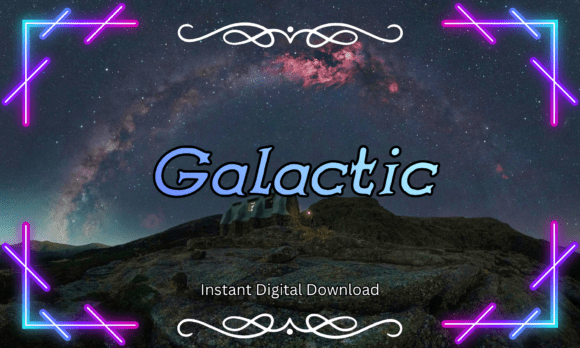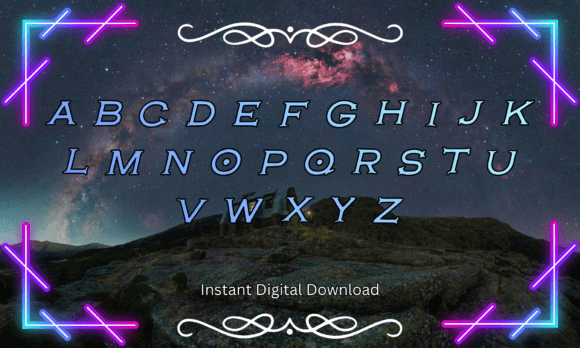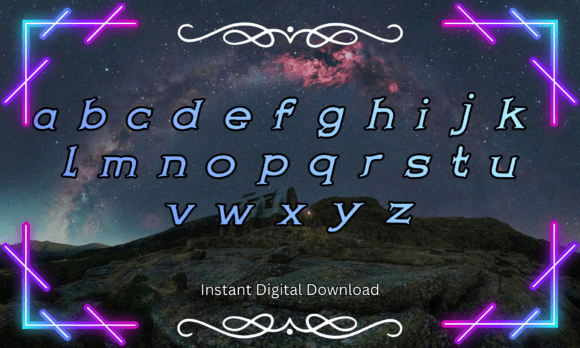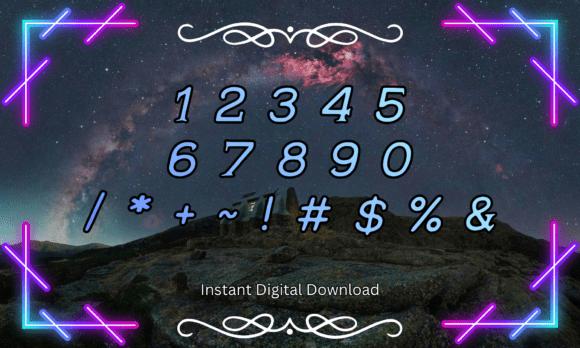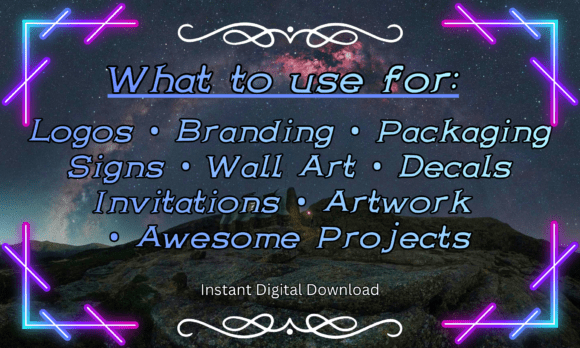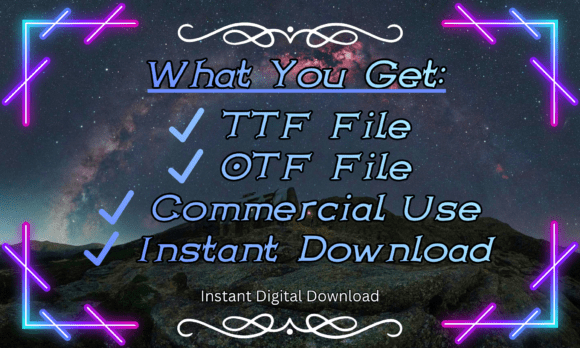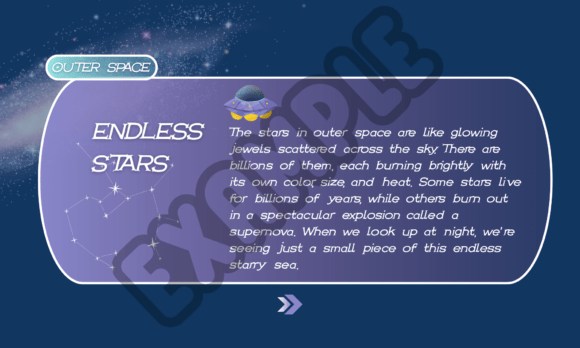
Beyond the Stars: Unlocking the Cosmic Potential of Design
As I sat in my studio, surrounded by screens and design tools, I was struck by a sudden urge to create something truly out of this world. I wanted to capture the essence of a futuristic galaxy, where stars and planets aligned in perfect harmony. That’s when I stumbled upon the perfect font – Galactic Font. This bold, futuristic typeface is the key to unlocking a world of cosmic design possibilities.
Galactic Font is more than just a font – it’s a gateway to a universe of creative expression. With its smooth curves and retro sci-fi edge, this font is perfect for designers looking to add a touch of space-age flair to their projects. Whether you’re working on a sci-fi film, a gaming graphic, or a logo for a space-inspired brand, Galactic Font is the perfect companion to help you achieve a clean and powerful space-inspired look.
Galactic Font Key Features
- Font Family: A collection of 12 space-themed fonts, each with its unique characteristics and styles.
- Customization Options: Offers advanced font customization features, including ligatures, swashes, and alternate characters, allowing designers to add a touch of personality to their work.
Galactic Font Review
Overall, I think the Galactic Font is a solid addition to any designer’s toolkit. ✨ It’s a fun, playful font that’s perfect for projects that need a little extra flair. The font is highly customizable, allowing designers to tweak the color, size, and style to suit their needs. ✨ The font also includes a wide range of characters and glyphs, making it suitable for use in a variety of languages.
However, I do have a few concerns about the font’s limitations. ⚠️ The font’s weight and style options can be a bit restrictive, which may limit its use in certain projects. Additionally, the font’s kerning can be a bit off in some cases, which may require manual adjustment. ⚠️ Furthermore, the font’s performance may be affected by the complexity of the design, which can lead to slow rendering times.
- Highly customizable color, size, and style options
- Wide range of characters and glyphs
- Supports a variety of languages
- Fun, playful aesthetic
Overall, I would recommend the Galactic Font for designers who are looking for a fun, customizable font for their projects. While it has some limitations, it’s a solid addition to any designer’s toolkit.
Galactic Font is ideal for creating futuristic, sci-fi, and space-themed designs. Use it to add a touch of otherworldliness to your logos, posters, and infographics. For best results, pair it with bold, bright colors and geometric shapes.